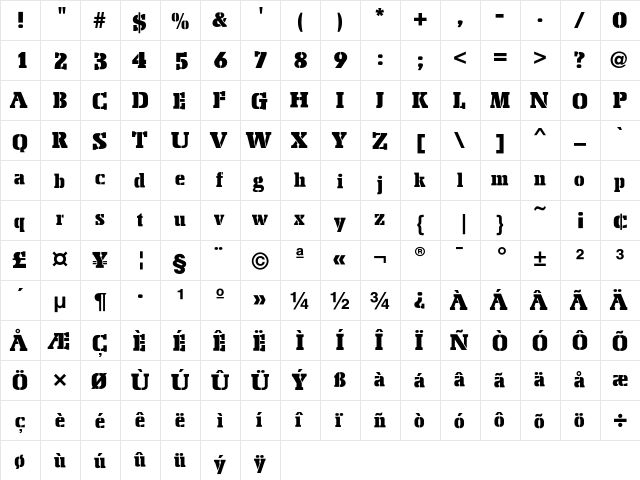
Geshexport Normal
Design Context for Geshexport Typeface
Geshexport is a composed and adaptable typeface that performs quietly and consistently across a wide range of design contexts.